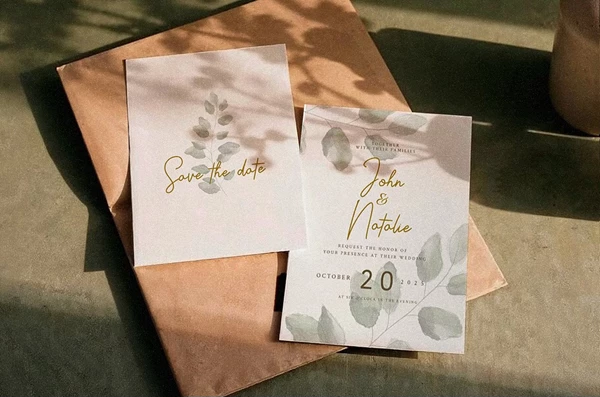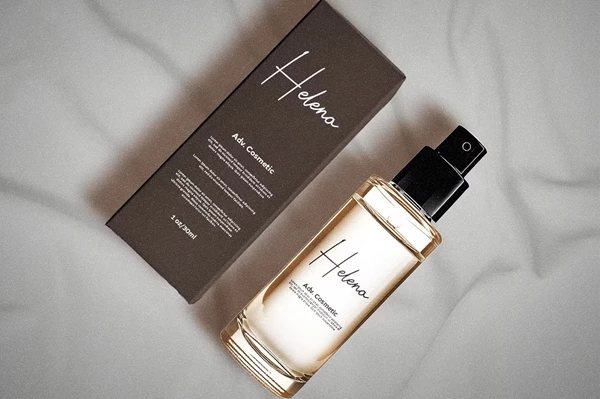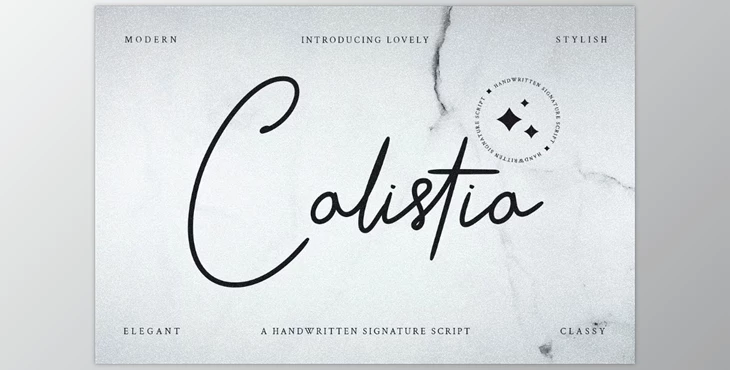
Calistia - Signature Font:
Signature Font Calastia is a remarkable script font and its signature-style lettering shows no bounds in elegance. Calastia boasts a realistic feel of being hand-drawn which makes it stand out along with its smooth curves and flowing strokes.
The font works brilliantly in creative projects such as branding, logo designs, extravagant packaging, and even wedding invitations. Calastia injects priceless sophistication and charm into projects. The font is perfect to complement clean minalist designs and giving a warm handwritten feel. Fully optimized for print and digital use ensures stylistic consistency and flexibility across all platforms.
- Authentically handwritten style that copies the look of actual signature writing